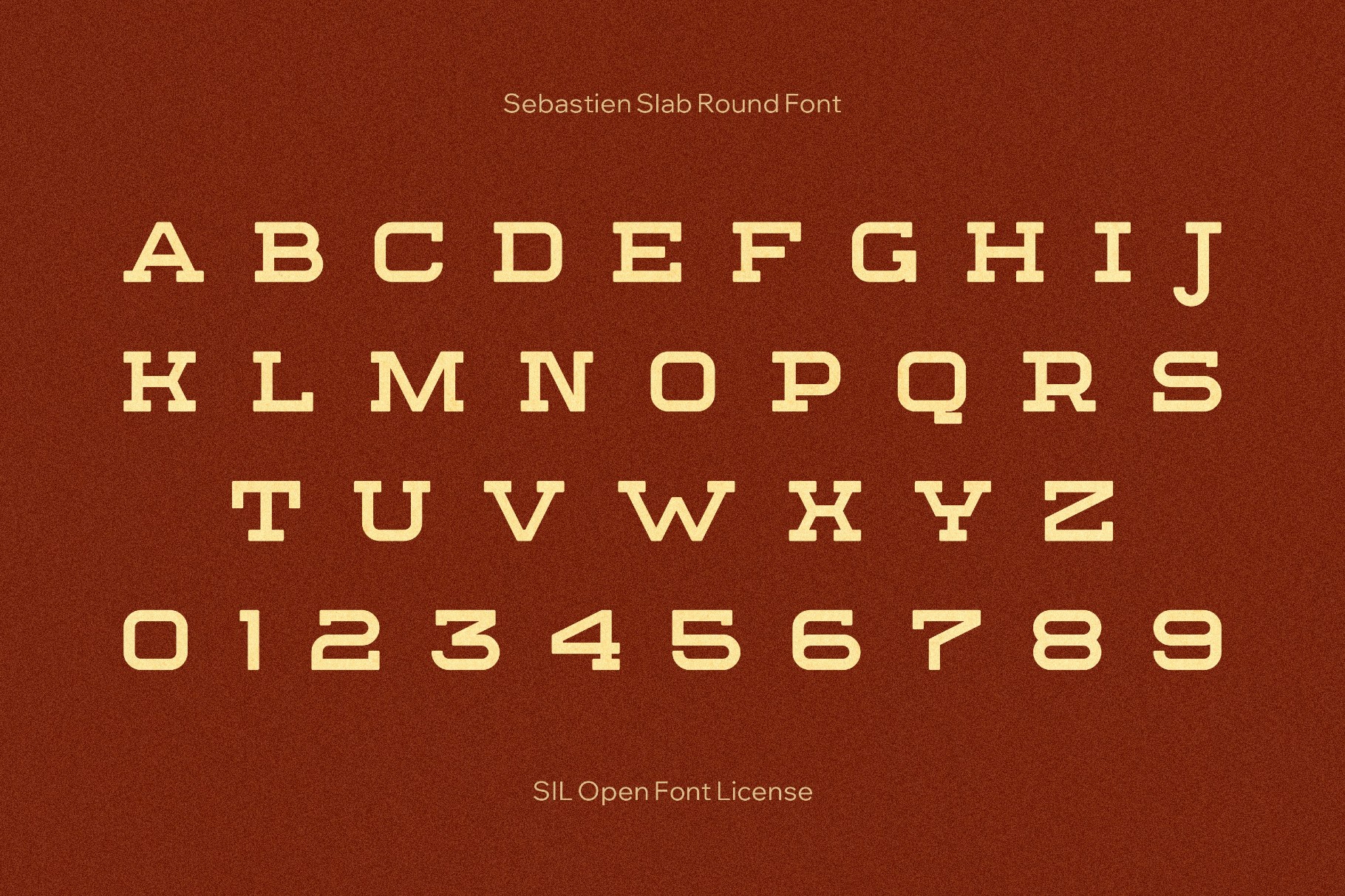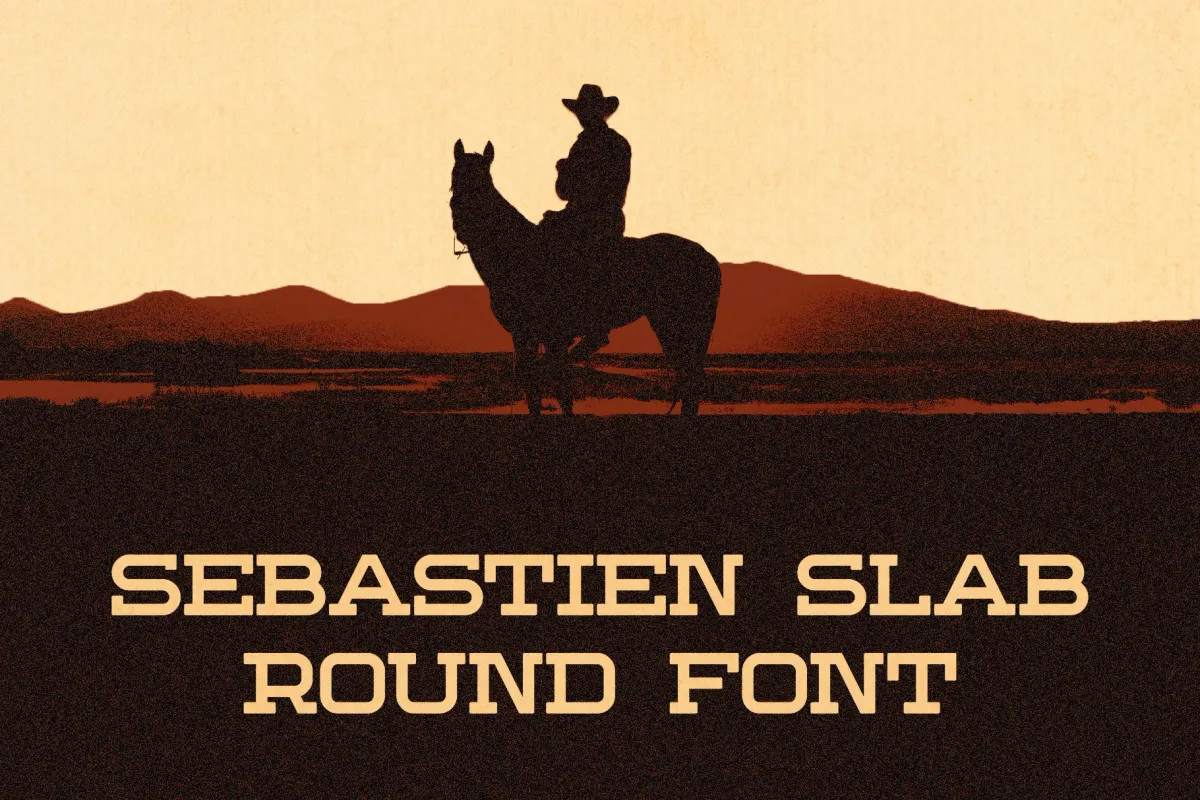
Sebastien Slab Round Font
Sebastien Slab combines a sturdy weight with softened, rounded plate-style caps that echo 1970s packaging and editorial display type. It works beautifully for logos, café menus, product packaging, children’s titles, posters, social media graphics, and app or website headers. It also suits signage, short-form callouts, and brand systems.
- Uppercase letters only.
- Extended Latin support.